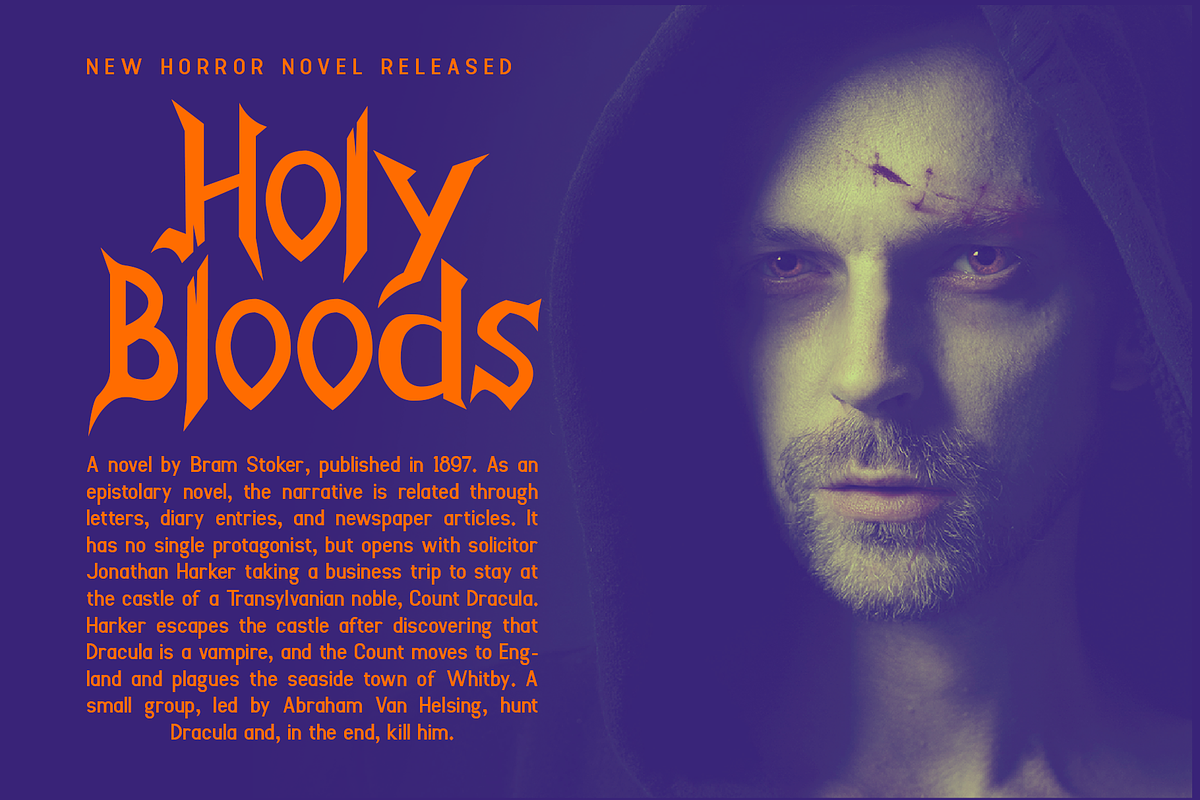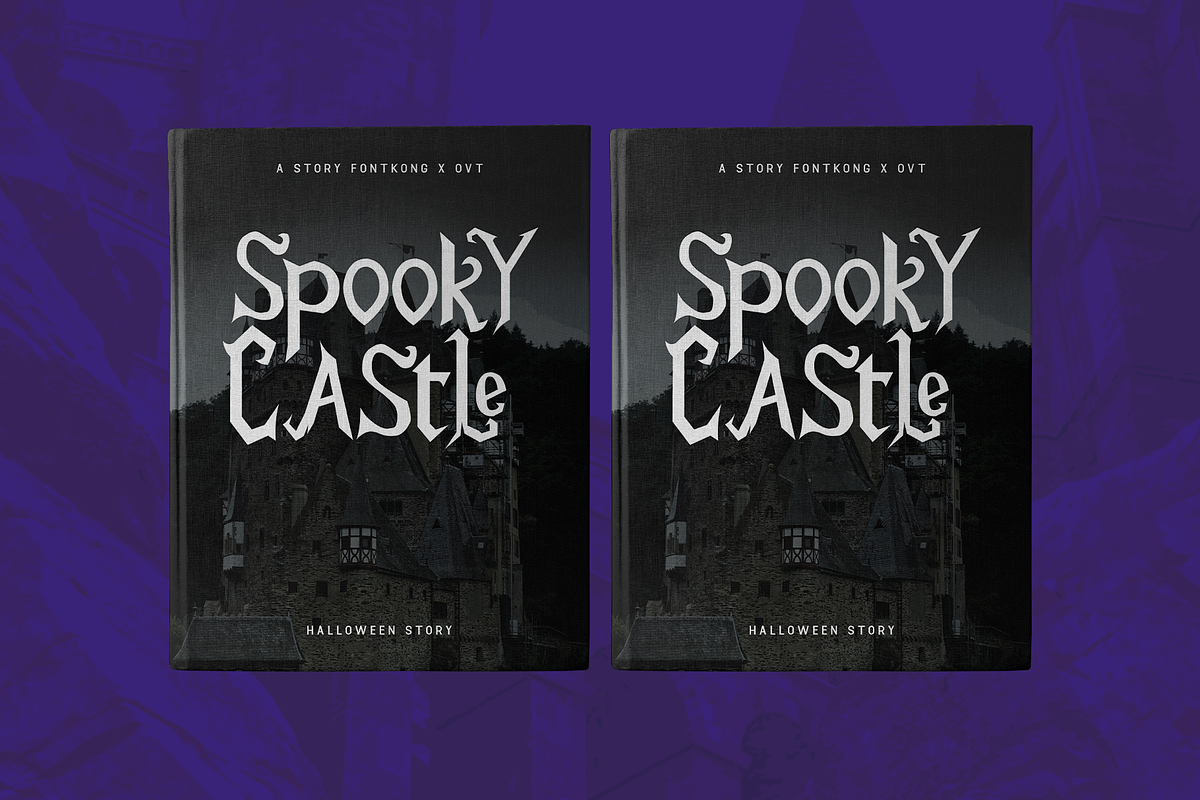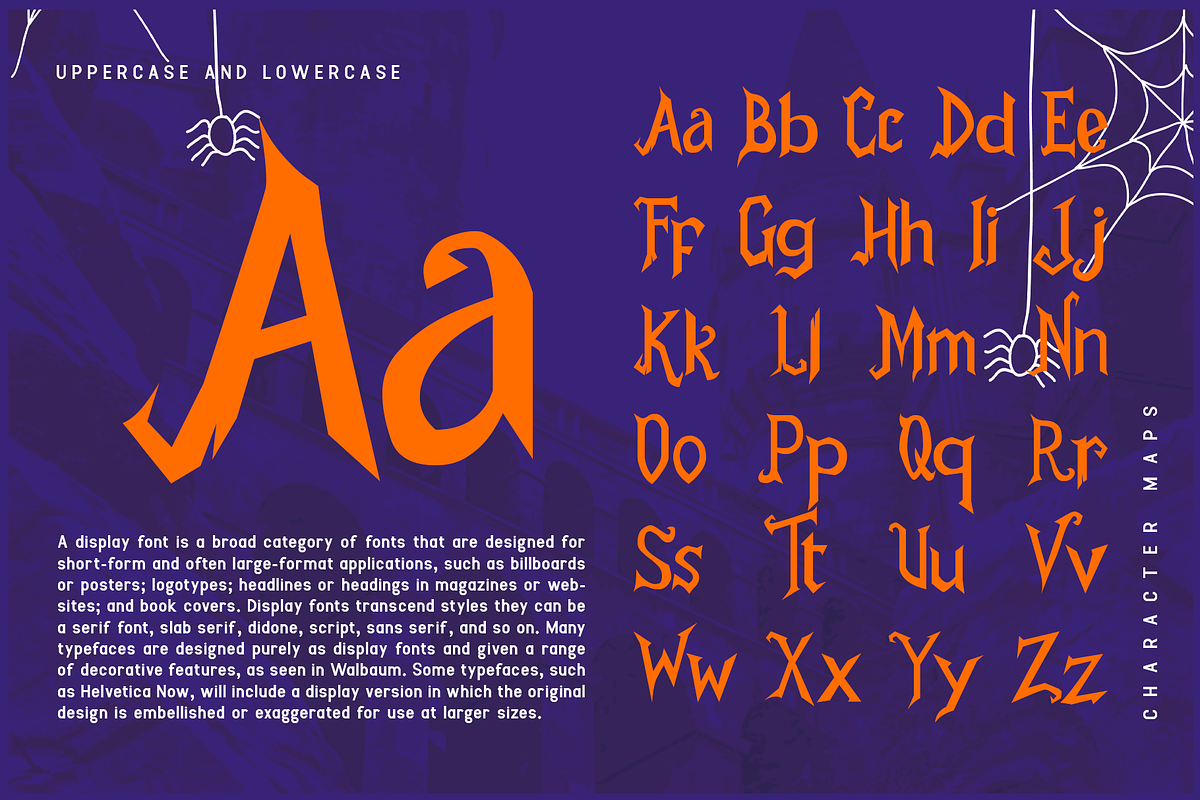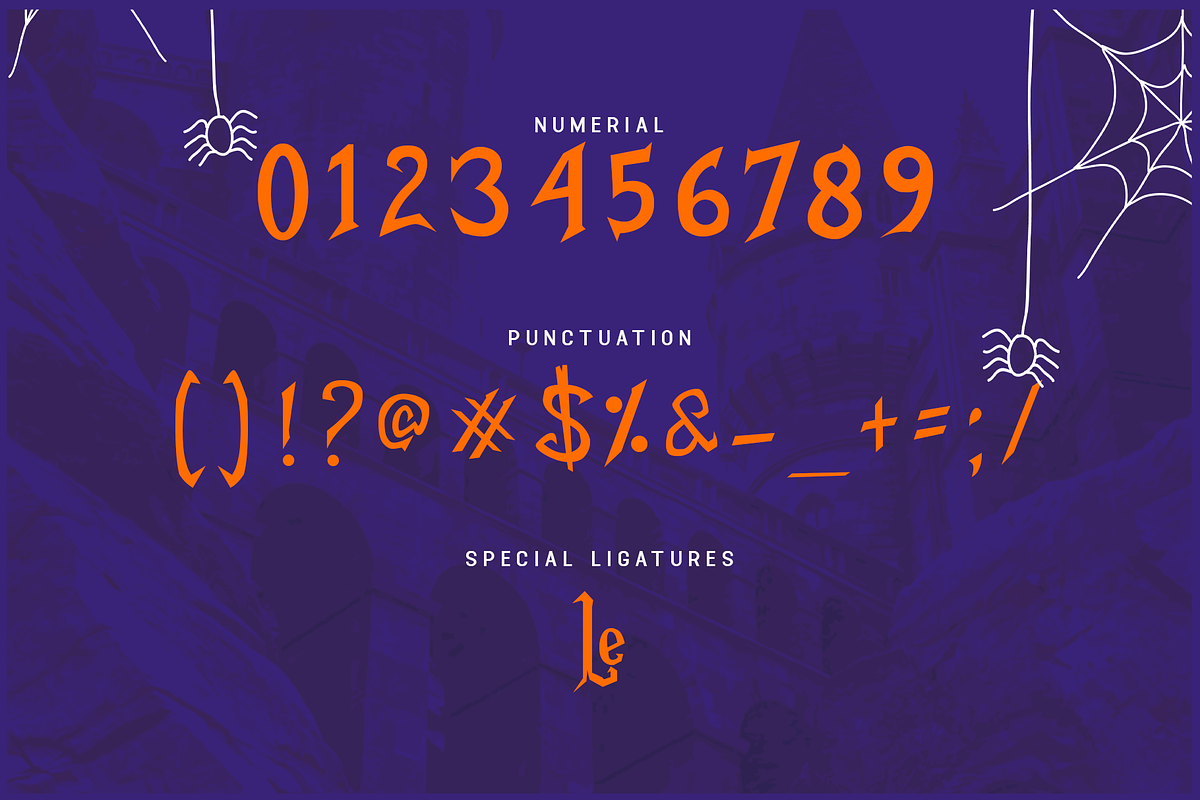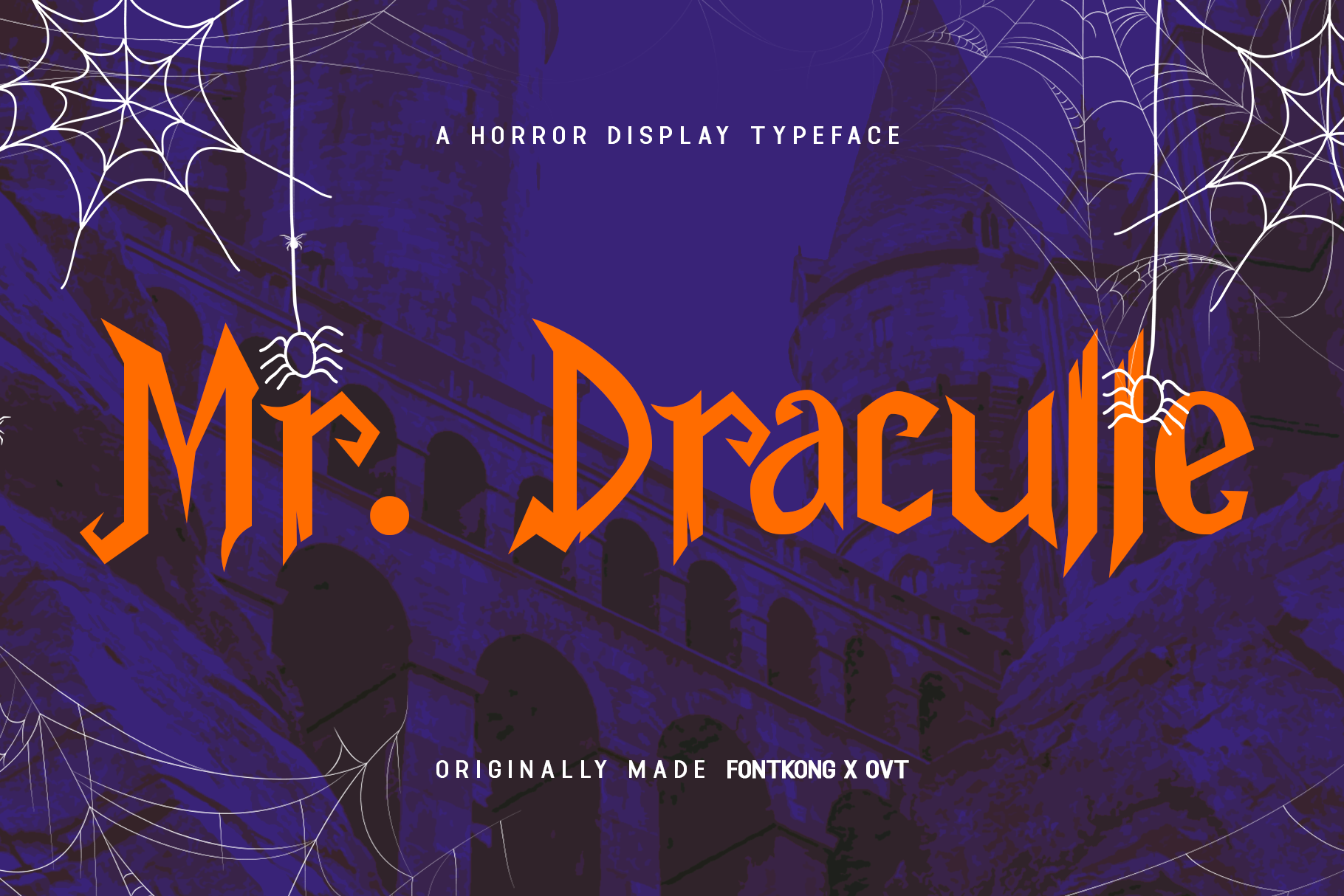
Mr. Draculle–Horror Display Typeface
Mr. Draculle – A Horror Display Typeface
Mr. Draculle is a spine-chilling horror display typeface that brings an eerie atmosphere to your designs. With sharp edges, jagged curves, and a gothic aesthetic, this font is perfect for Halloween themes, horror posters, spooky invitations, merchandise, and book covers. Its bold and unsettling style captures the essence of fear, making it an excellent choice for haunted-themed projects.
Whether you're designing for horror events, thriller games, or creepy branding, Mr. Draculle adds the perfect touch of darkness and mystery. The font is versatile for both print and digital formats, ensuring your message stays terrifyingly clear while creating an immersive atmosphere.
Unleash the darkness with Mr. Draculle a font that brings nightmares to life with every letter.